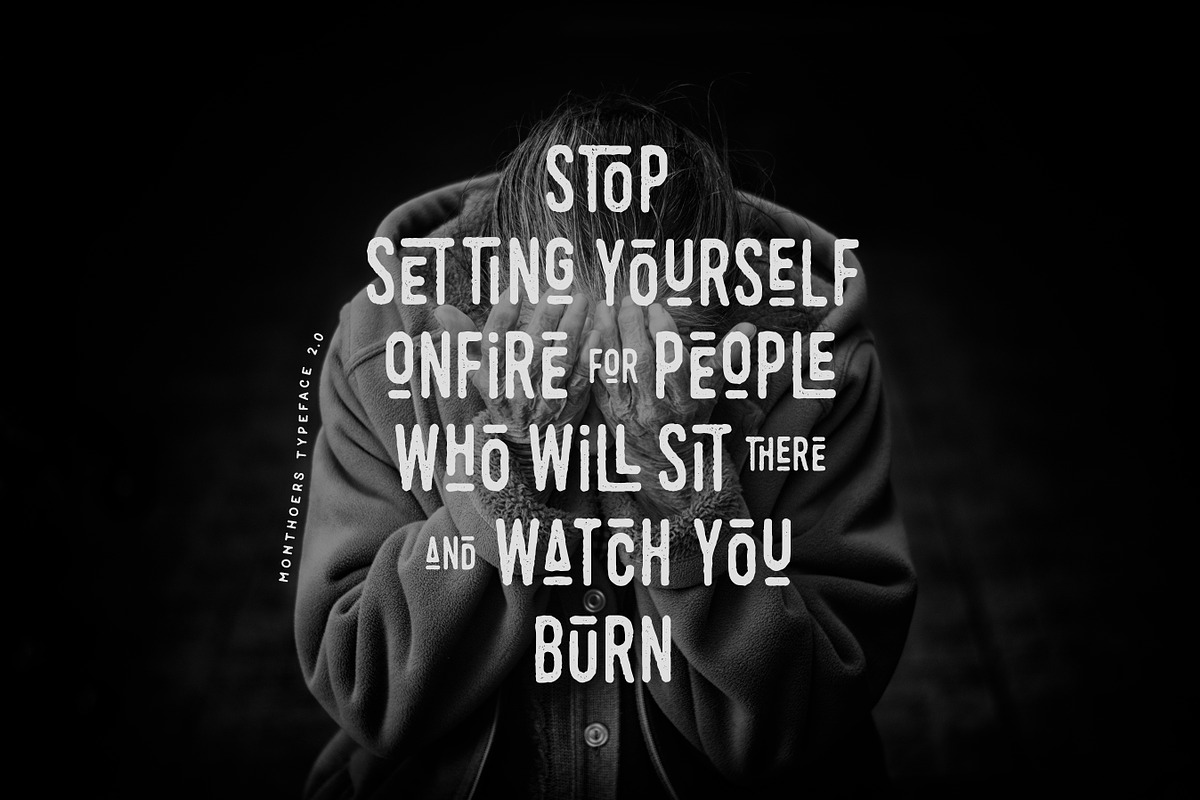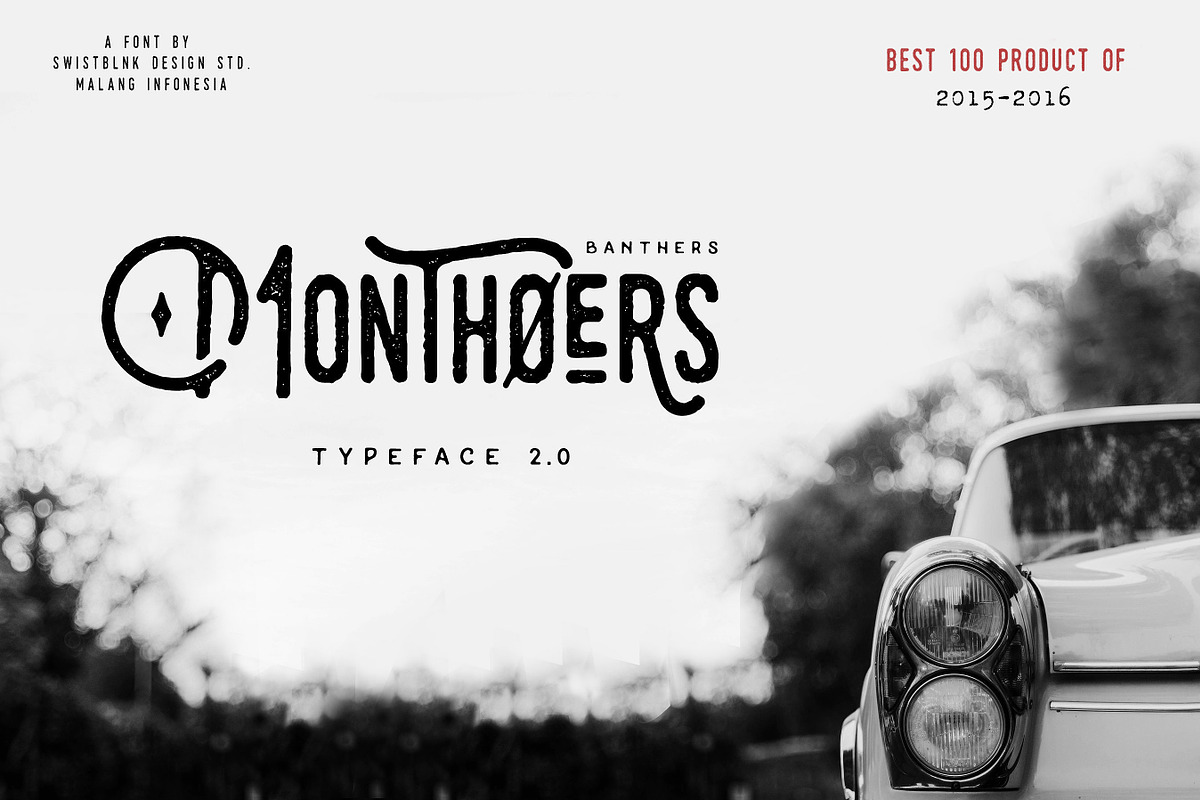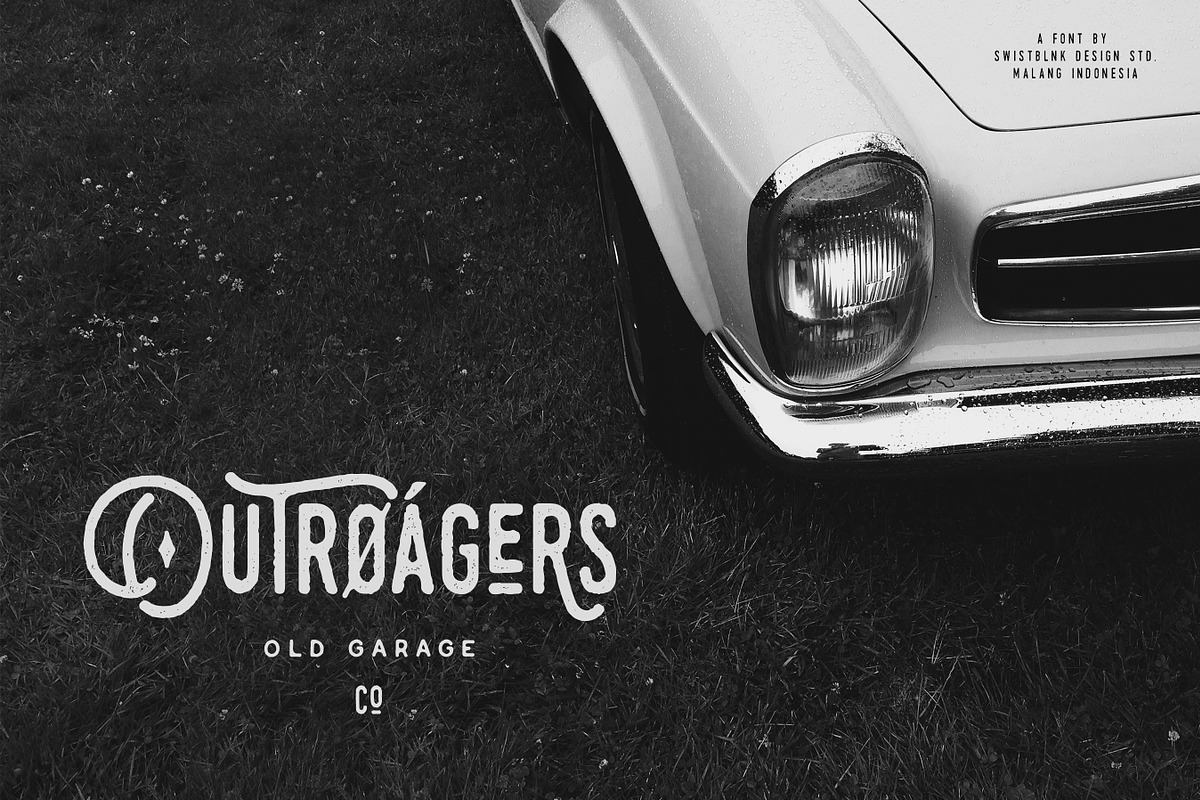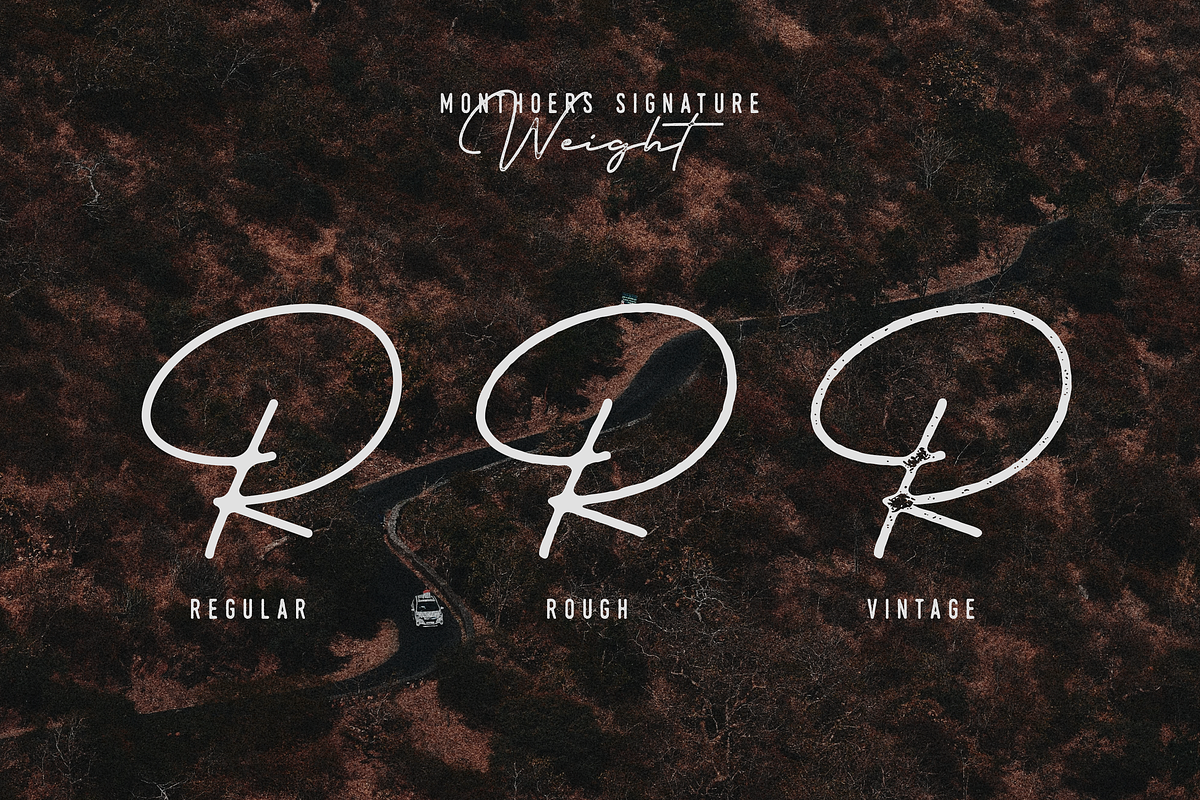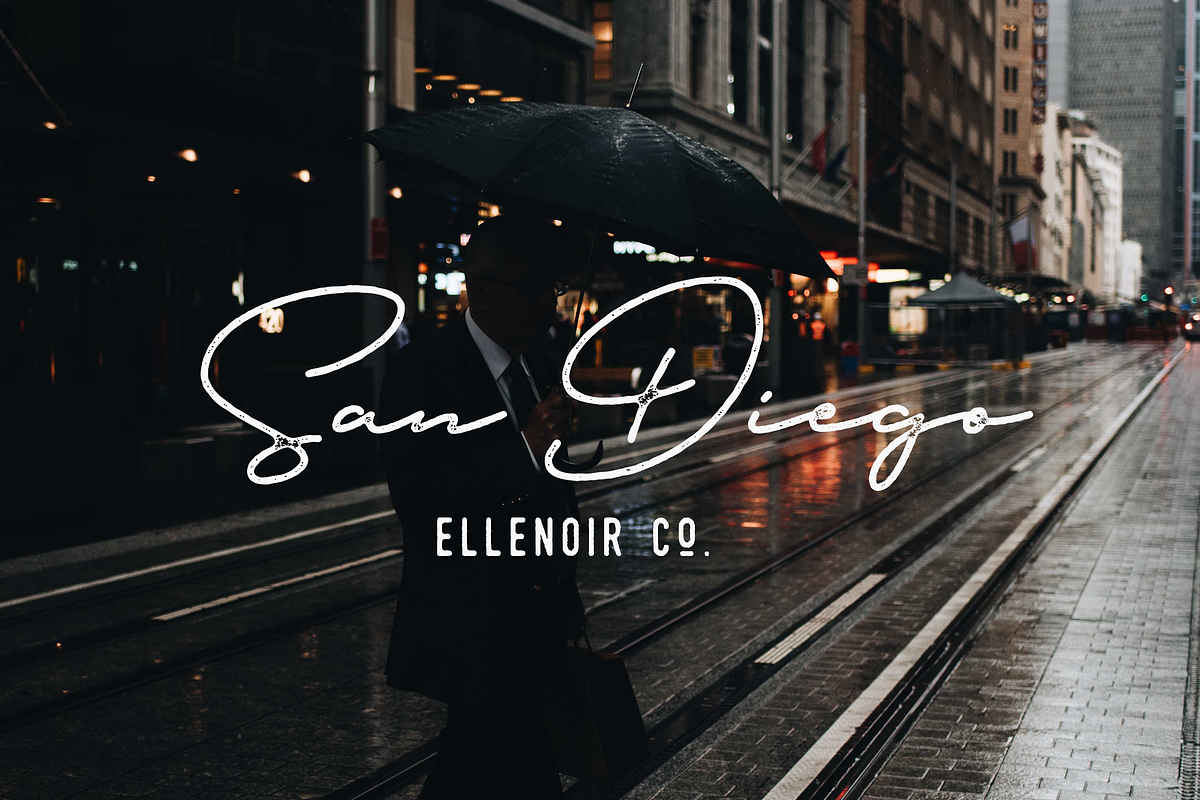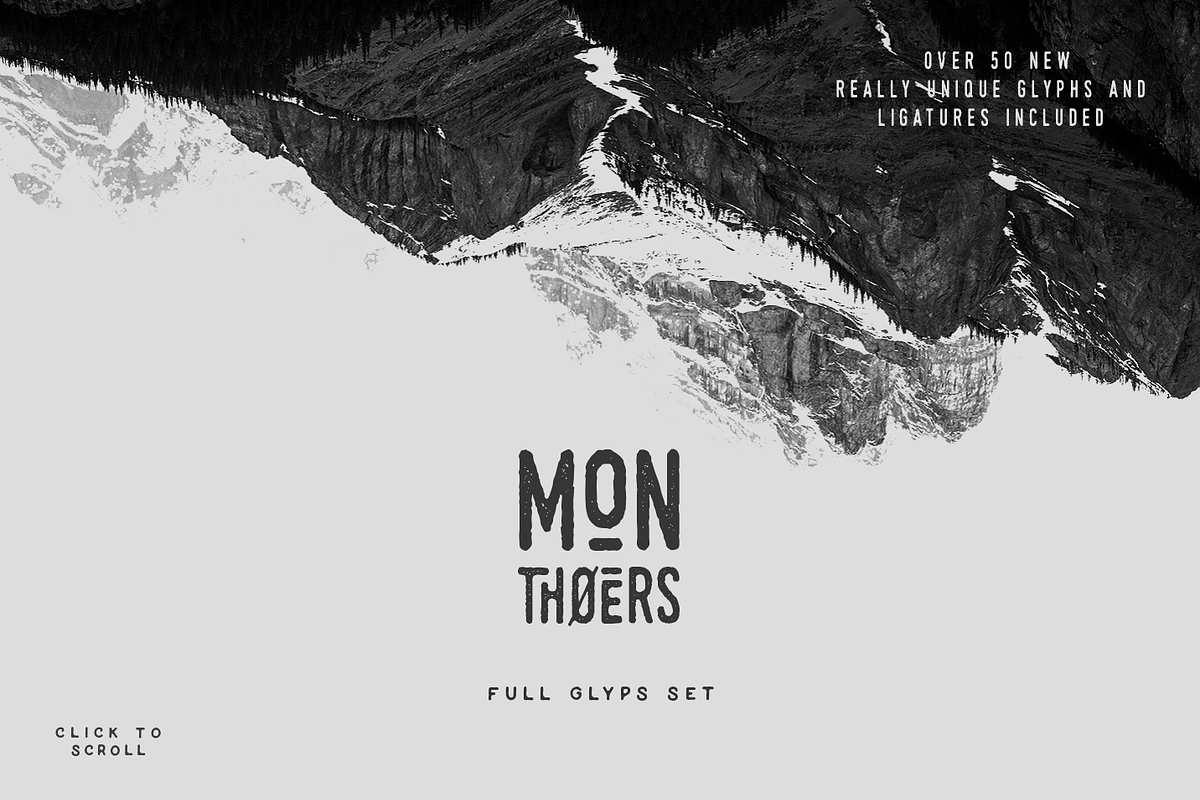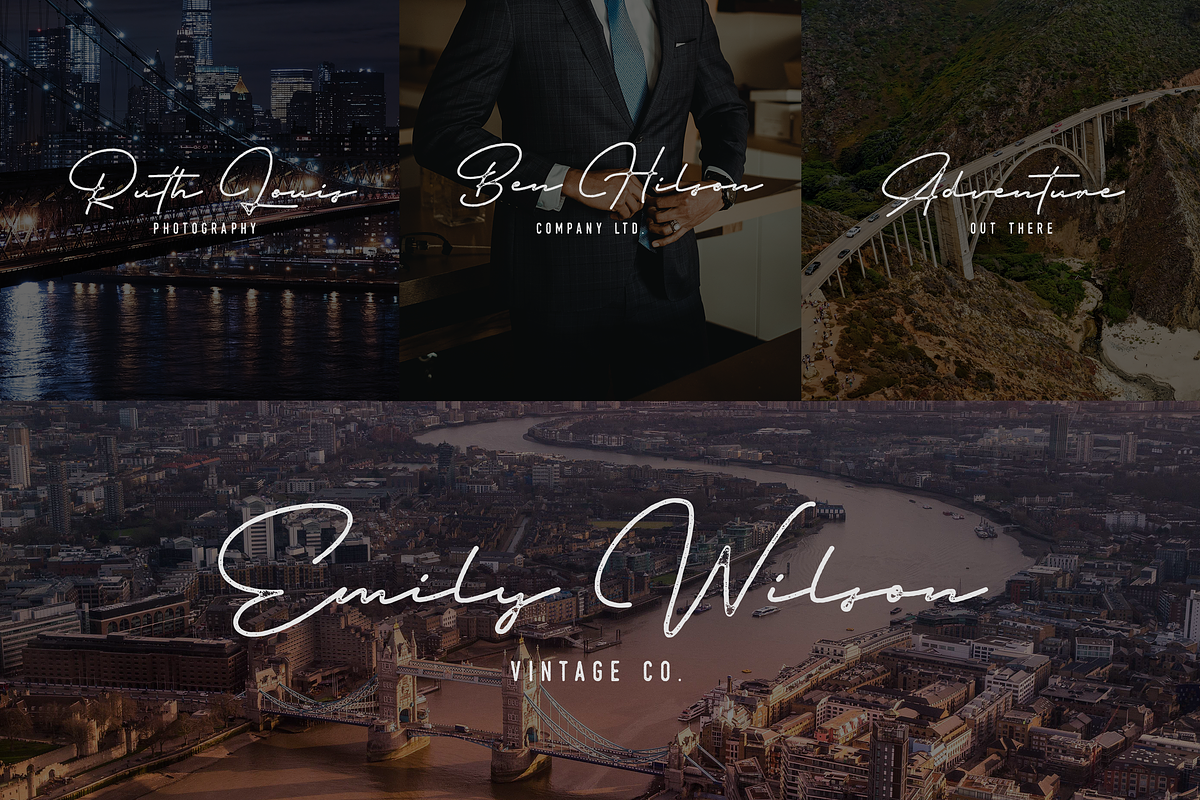
Monthoers Signature - Font Duo
Monthoers Signature - Font Duo by Swistblnk Std. is a font selected for branding, posters, packaging, typography.
- Monthoers Weight :NEW
- Monthoers 2.0 Clean
- Monthoers 2.0 Rough
- Monthoers 2.0 Vintage
- Monthoers 2.0 Clean Clean
- Monthoers 2.0 Regular
- Monthoers Signature
- Monthoers Signature Rough
- Monthoers Signature Vintage
- Monthoers Vintage 2.0 Vintage
Monthoers Signature - Font Duo by Swistblnk Std. fits naturally into Branding, posters, packaging, typography.